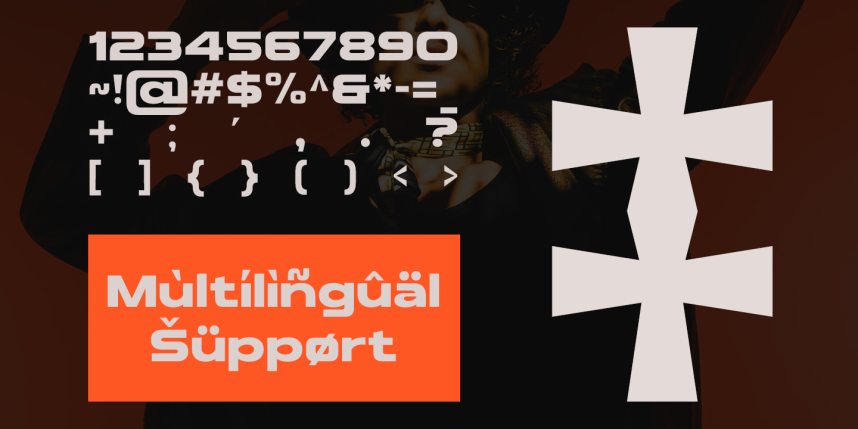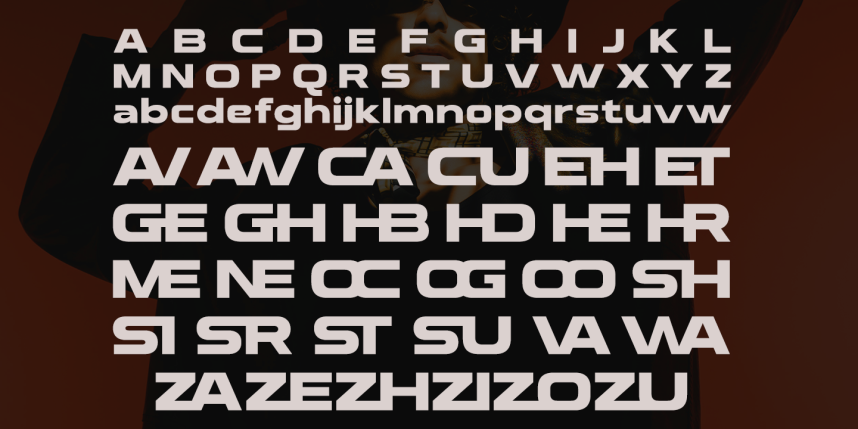
Finzer Font is a modern geometric sans-serif with a clean and highly legible structure. Its balanced letterforms are perfect for corporate branding and digital interfaces. The typeface maintains a subtle warmth to avoid a sterile feel.
It includes an extensive family with seven weights, from light to black, each with matching italics. This range provides excellent versatility for creating clear visual hierarchies. Use it for websites, apps, and professional reports.
The font excels in user interface design where clarity on screens is paramount. Its open counters and consistent proportions ensure readability at small sizes. Finzer projects an image of trustworthy and contemporary professionalism.
Avoid using it for projects requiring a traditional or highly decorative style. Its strength lies in its refined, neutral functionality. Pair it with a classic serif for a dynamic and sophisticated contrast.
For optimal results, use Finzer for headlines and body text in tech or finance sectors. It supports a wide range of Latin-based languages with precision. This font is a reliable foundation for any modern communication system.
Type Geometric Sans-Serif
Best For Corporate UI & Digital Publications
Unique Feature Screen-Optimized Hinting for Retina Displays
In essence, Finzer is a versatile and robust typographic tool. It combines digital-native performance with editorial elegance. It is built to perform with credibility in any demanding design context.